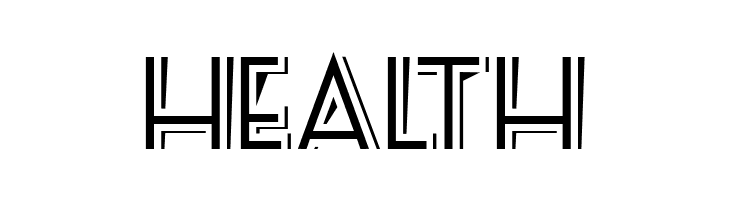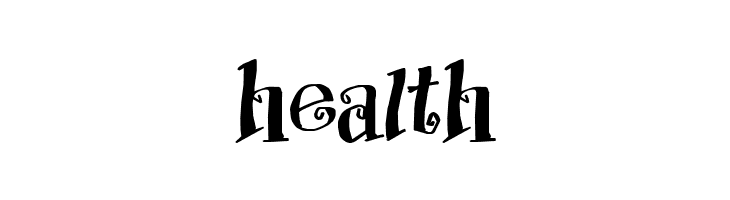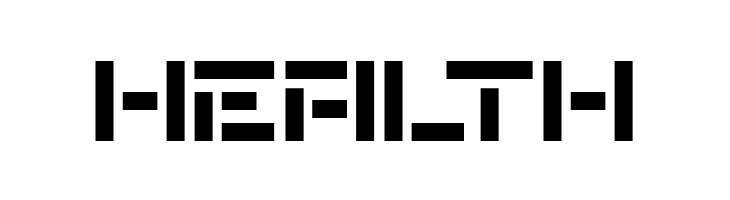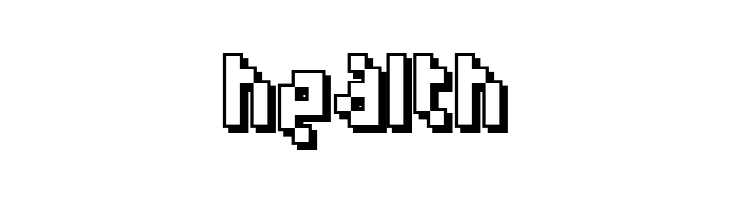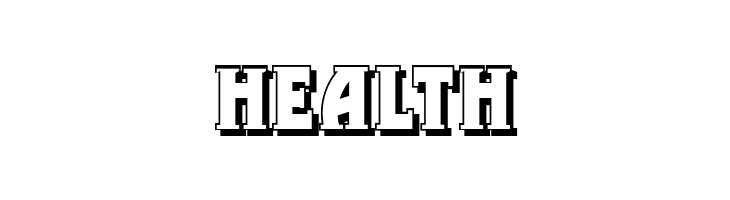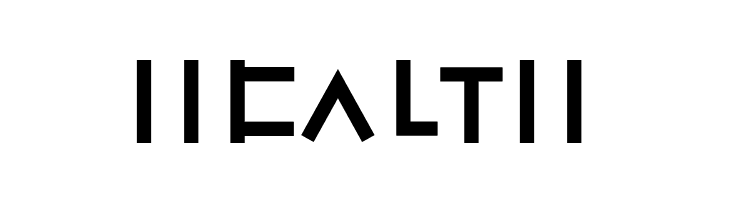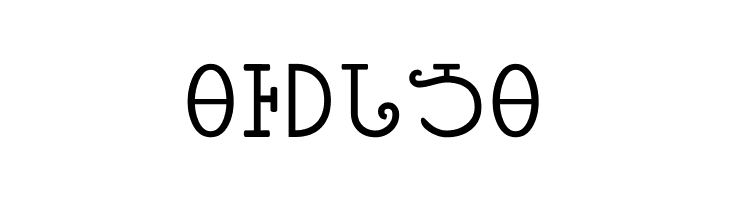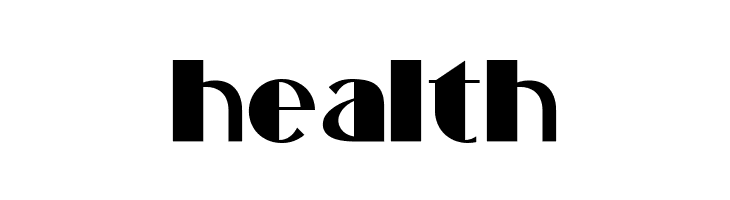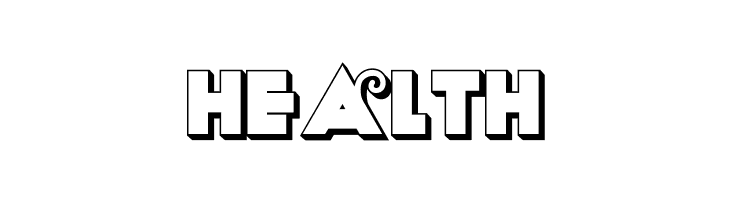
A bold, Art Deco-inspired font with geometric shapes and elegant lines.
A whimsical, handwritten font with decorative curls and swirls.
A bold, geometric stencil font with a modern industrial feel.
A bold, pixelated font with a retro, 8-bit video game style.
A bold, vintage-style font with a three-dimensional shaded effect.
A bold, geometric font with an art deco influence.
A script representing the Cherokee syllabary with rounded, uniform characters.
A bold, geometric font with high contrast and dynamic style.
A bold, zigzag-patterned decorative font with Art Deco influences.
A bold, geometric font with a three-dimensional shadow effect.